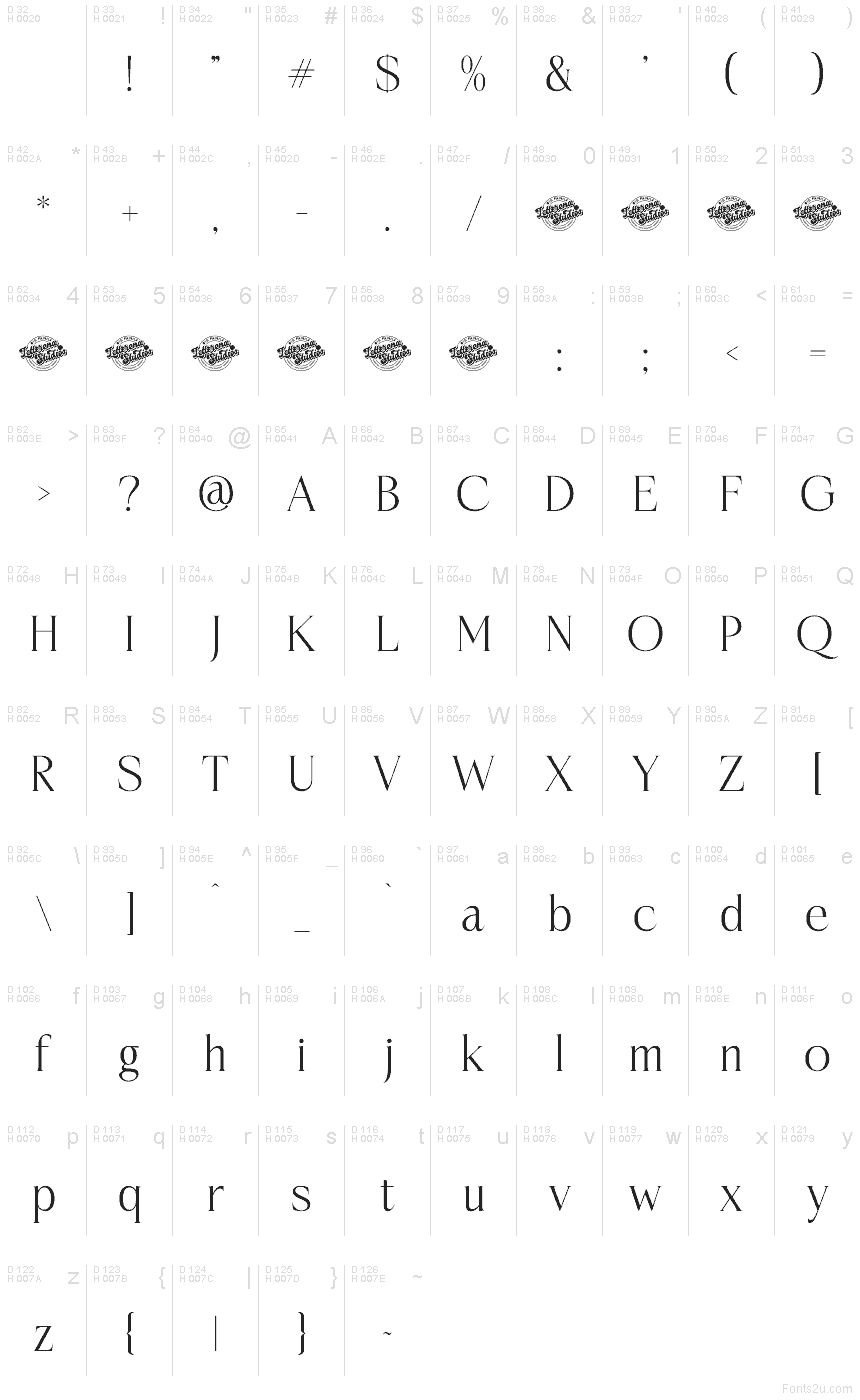
Casselin DEMO VERSION
Casselin font by Letterena Studios is a free serif typeface with a poised, fashion-forward edge. Its letters feel like they’ve been drawn with a fine ink pen—slender verticals, crisp curves, and those elegant, sweeping joints that add a subtle sense of movement. The spacing is airy without feeling fragile, so even a single word set in Casselin has a refined, editorial presence.
Using Casselin, headlines and wordmarks instantly pick up a luxe, magazine-style polish that shines on fashion branding, boutique logos, packaging, invitations, book covers, and social media graphics. This free font thrives at larger sizes where its delicate curves can really breathe. For a balanced typographic system, pair Casselin for titles with a clean geometric sans for supporting text.